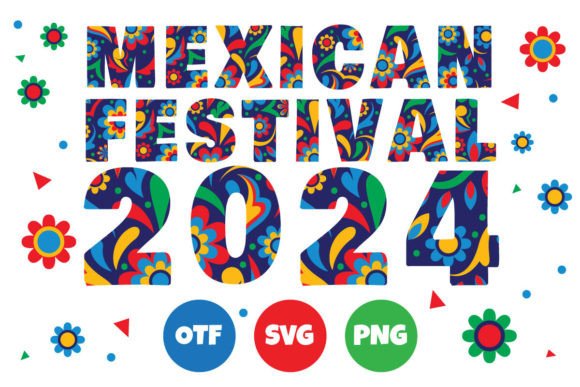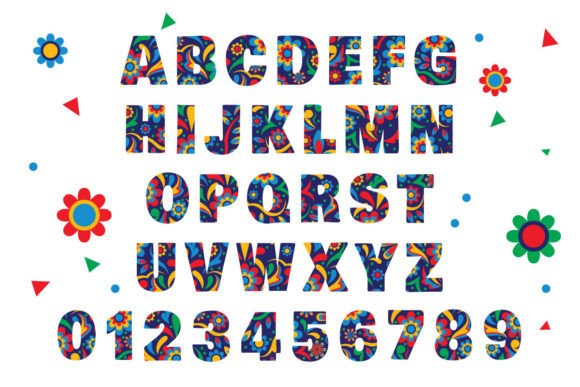
Introduction to Mexi Festi Font
MEXI FESTI is the font MEXICAN and FESTIVAL concept design.
The colorful and contrasting colors make it look extremely attractive And have an abstract shape to look festive, congratulations, celebrate, and playful.
Key Features of Mexi Festi Font